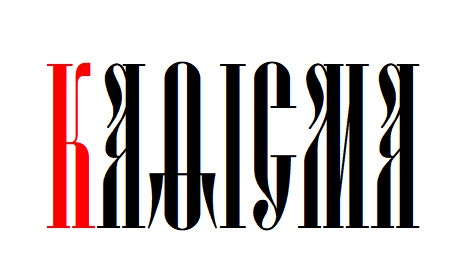
Cathisma Unicode Font
Cathisma Unicode Font is perfect for religious publishing projects, ecclesiastical branding, liturgical document design, theological education materials, sacred music publications, Orthodox church communications, scholarly religious texts, and spiritual meditation applications. This reverent typeface works beautifully in both digital applications and print media where sacred tradition and spiritual reverence are fundamental design requirements.
What makes Cathisma Unicode Font so exciting is its profound interpretation of ecclesiastical typography through sacred letterforms that seem inscribed with the devotional spirit of ancient monasteries and the contemplative wisdom of religious scribes. The font features reverent characters with liturgical proportions, spiritual curves, and sacred details that evoke the timeless beauty of illuminated manuscripts and the meditative quality of sacred texts. Its devotional personality and ecclesiastical heritage make it ideal for religious organizations seeking to communicate spiritual authenticity, scholarly reverence, and the profound depth of theological tradition while maintaining excellent readability across liturgical applications.
The Cathisma Unicode Font family includes multiple weight variations with different sacred intensities, along with liturgical alternates and ecclesiastical ornamental elements. Each style maintains the typeface's reverent character while offering comprehensive Unicode support including ancient Greek characters, Cyrillic scripts, theological numerals, sacred punctuation marks, and special symbols designed to enhance religious communications and spiritual branding efforts across various ecclesiastical contexts.
This remarkable typeface represents the perfect fusion of ancient religious tradition and contemporary publishing functionality for theological and educational institutions. Whether you're developing Orthodox church identities, creating theological seminary materials, or designing sacred music publications, Cathisma Unicode Font Free Download provides the spiritual authenticity and versatility needed to serve religious communities worldwide. The font's ecclesiastical heritage makes it particularly effective for religious publishers, theological schools, Orthodox churches, and organizations preserving the sacred traditions of Christian scholarship.
The meticulously crafted sacred details and optimized liturgical performance in Cathisma Unicode Font ensure both spiritual authenticity and clear communication across all religious applications. Its reverent presence makes it perfect for ecclesiastical branding, theological marketing materials, and sacred communications where its full liturgical character can create meaningful connections with audiences seeking spiritual depth and the enduring wisdom of ancient religious traditions.